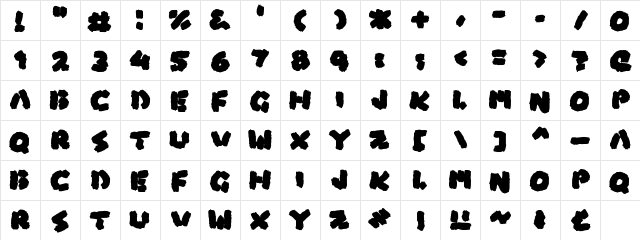
Boss Fight Regular
Design Context for Boss Fight Typeface
Boss Fight is a composed and adaptable typeface that performs quietly and consistently across a wide range of design contexts.